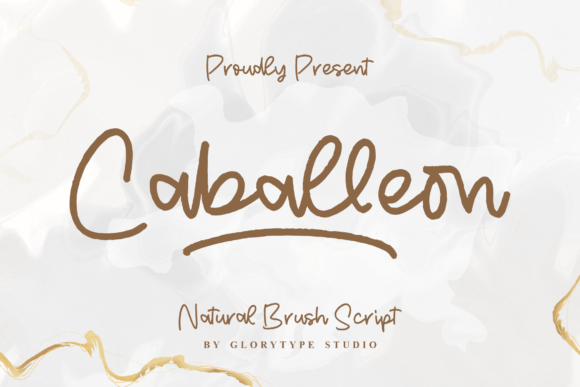
Journey into the realm of handwritten elegance with Caballeon Font, a script font family that exudes charm and sophistication. Its graceful curves and delicate strokes evoke the beauty of a heartfelt letter, making it the perfect choice for adding a personal touch to your creative endeavors.
Crafted with love by Glorytype Studio, Caballeon Font is a treasure trove of versatility. Its whimsical nature lends itself effortlessly to wedding invitations, adding a touch of romance and whimsy to your special day. Whether you're designing cards, invitations, or embarking on any project that calls for a dash of romantic flair, Caballeon Font stands ready to elevate your vision.
Step into a world of endless possibilities with Caballeon Font. Its enchanting aura brings life to your words, making them dance across the page with an enchanting grace. From heartfelt notes to captivating social media posts, Caballeon Font transforms your words into works of art, leaving a lasting impression on your audience.
Unleash your creativity with Caballeon Font, the ultimate tool for crafting heartfelt messages and personalized designs. Its ability to capture the essence of handwritten beauty makes it a must-have for any designer or creative individual seeking to make a statement.